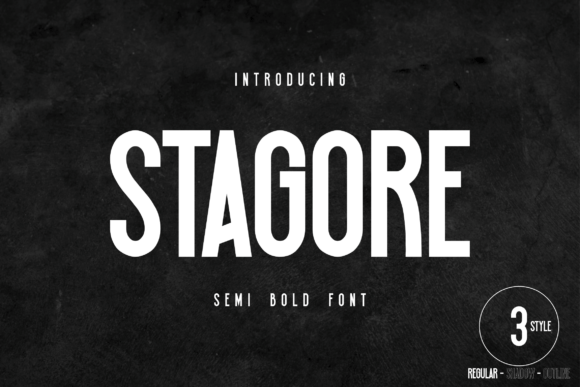
Introducing Stagore Font: The Ultimate Choice for Bold and Edgy Typography
In the world of typography, fonts play a crucial role in conveying messages, expressing emotions, and creating lasting impressions. With the ever-evolving design landscape, the demand for unique and impactful fonts has increased significantly. This is where Stagore Font comes into play – a powerful, edgy sans serif font that exudes audacity and poise. In this article, we’ll delve into the features, benefits, and applications of Stagore Font, exploring why it’s the perfect choice for designers seeking to make a bold statement.
Key Features of Stagore Font
- Acute Angles: Stagore Font boasts acute angles that give it a sharp, cutting-edge look, perfect for grabbing attention and making a lasting impact.
- Close-Knit Spacing: The font’s close-knit spacing ensures that every character is in harmony with the others, creating a cohesive and visually appealing typography.
- Ultra-Modern Industrial Vibe: Stagore Font’s industrial vibe gives it a modern, edgy feel that’s perfect for designs that require a bold and daring approach.
- Commanding yet Neat Design: The font’s design is both commanding and neat, making it ideal for platforms seeking sharpness, clearness, and an unapologetic bold statement.
Applications of Stagore Font
Stagore Font is a versatile typeface that can be used in various design applications, including:
- Dynamic Logos: Create eye-catching logos that make a bold statement and leave a lasting impression on your audience.
- Gripping Esports Branding: Take your esports branding to the next level with Stagore Font’s edgy, modern vibe that’s perfect for the gaming industry.
- Influential Posters: Design posters that grab attention and convey your message with clarity and impact.
- Urban Streetwear: Add a touch of edginess to your urban streetwear designs with Stagore Font’s bold, industrial look.
- Potent Headlines: Create headlines that scream for attention and make a lasting impact on your audience.
The Power of Typography: Why Stagore Font Stands Out
Typography is an essential aspect of design, as it can make or break the visual appeal of a project. Stagore Font stands out from the crowd due to its:
- Strength: Every character in Stagore Font resonates strength, giving your typography a powerful and confident look.
- Exactness: The font’s precise lines and curves ensure that your message is conveyed with clarity and precision.
- Raw Competitive Edge: Stagore Font’s edgy, industrial vibe gives it a raw competitive edge that’s perfect for designs that require a bold and daring approach.
Design Tips for Using Stagore Font
To get the most out of Stagore Font, follow these design tips:
- Pair with contrasting fonts: Combine Stagore Font with contrasting fonts to create visual interest and add depth to your design.
- Experiment with colors: Try out different colors to find the perfect match for your design and make your typography pop.
- Play with spacing: Adjust the spacing between characters to create a unique and visually appealing typography.
Why Choose Stagore Font?
With so many fonts available, why choose Stagore Font? Here are a few reasons:
- Unique and edgy: Stagore Font offers a unique and edgy look that’s perfect for designs that require a bold and daring approach.
- Versatile: The font is versatile and can be used in various design applications, from logos to posters.
- High-quality: Stagore Font is a high-quality typeface that’s designed to deliver exceptional results.
In conclusion, Stagore Font is a powerful, edgy sans serif font that’s perfect for designers seeking to make a bold statement. With its acute angles, close-knit spacing, and ultra-modern industrial vibe, Stagore Font is the ultimate choice for dynamic logos, gripping esports branding, influential posters, urban streetwear, and potent headlines. Whether you’re a seasoned designer or just starting out, Stagore Font is a must-have in your typography arsenal.